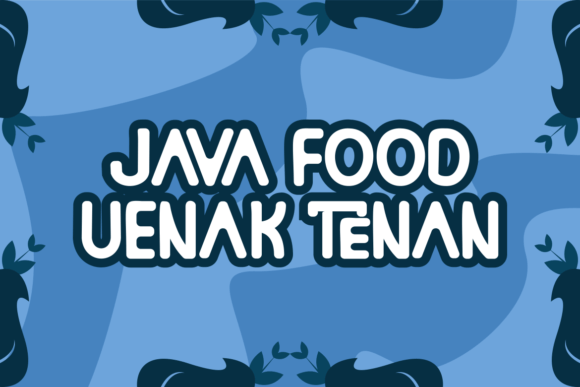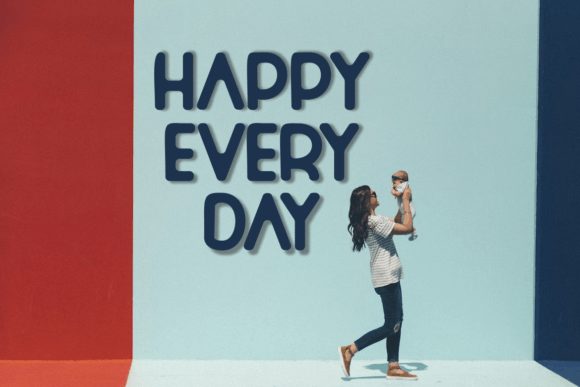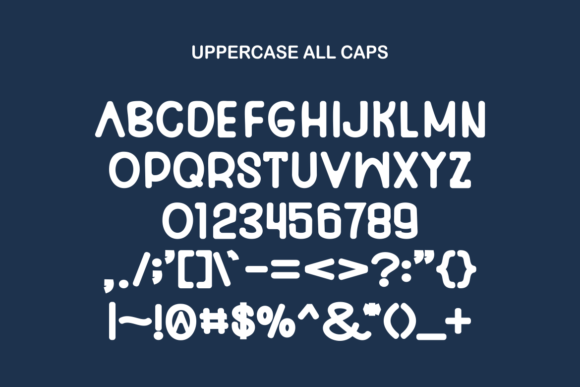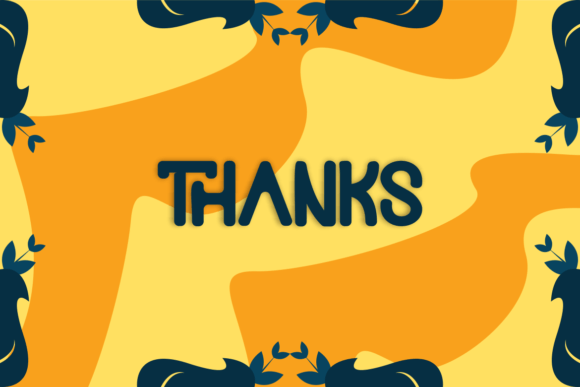
Introduction to Kulup Pecel Font
Do you ever find yourself stuck in a creative rut, searching for the perfect font to bring your design project to life? I know I do! It was on one of those frustrating afternoons, surrounded by endless options, that I stumbled upon the charming Kulup Pecel Font. Its playful and whimsical nature immediately caught my eye, and I knew I had to share it with fellow designers.
As a valuable resource for designers, the Kulup Pecel Font offers a high-quality, free download that can be used for a variety of creative projects. With its transparent background and versatile design, it’s perfect for crafting social media posts, designing greeting cards, or even creating a logo. Whether you’re working on a children’s book or a social media campaign, this font is sure to add a touch of personality and charm to your work.
Key Features of Kulup Pecel Font
- High-quality, free design resource ideal for creative projects.
- Unique, hand-drawn style with a transparent background for flexible use.
- Includes a range of characters, including Latin, to support diverse languages.
- Perfect for designers looking for a distinctive, high-quality font without breaking the bank.
Honest Review: Kulup Pecel Font
As a designer, I’ve had the chance to explore various fonts for my creative projects. Recently, I stumbled upon the Kulup Pecel Font and decided to give it a try.
Here are some pros and cons of this font:
- ✨ High quality design that looks great on both light and dark backgrounds.
- ✨ Comes with a transparent background, making it versatile for various design applications.
- ✨ Suitable for use in various creative projects, from digital designs to print materials.
However, I noticed a few limitations:
- ⚠️ Limited character set, which might be a concern for designers who need a font with a wide range of characters.
- ⚠️ Not ideal for use in small font sizes, as it might become difficult to read.
Overall, I think the Kulup Pecel Font is a great addition to any designer’s resource library. While it has some limitations, its high quality design and free download make it a worthwhile choice for many creative projects.
Tips for Getting the Most Out of Kulup Pecel Font
To maximize the effectiveness of Kulup Pecel Font, use it with a transparent background to create a clean and minimalist design. Experiment with different font sizes and colors to create visual interest.
Kulup Pecel Font is ideal for creating invitations, social media graphics, and blog posts. Its high-quality design makes it perfect for professional and personal projects alike.
Q: Is the Kulup Pecel Font suitable for high-quality print projects?
Yes, the Kulup Pecel Font is designed to meet high-quality print standards. It has been carefully crafted to ensure that it looks its best at various font sizes and resolutions, making it suitable for use in print projects, such as business cards, brochures, and posters.